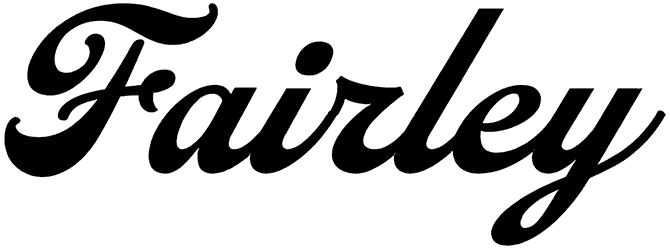
EFCO Fairley Font
If you need to demonstrate a vintage and cool personality, using a script font like EFCO Fairley would be an impressive choice. The smooth and cursive letters of this baseball font are going to bold your words. Ignore the lack of numbers and give the EFCO Fairley font a chance to shine in your creative projects, like gym clothes or a high school poster.
EFCO Fairley Font Collection includes 11 fonts that have different styles in sans, serif, and script, which all work great together or in their own. The script version also combined with ending swashes, use stylistic alternates from 0 to 9 to work with them. The Inspiration for this collection comes from today’s graphic design trends. EFCO Fairley Font Collection was designed carefully to create dozens of font combinations and get really unique typographic for your project. It would be a perfect choice for posters, logos, t-shirt and magazine prints, eye-pleasing typographic designs, and more.